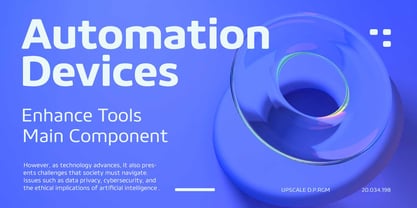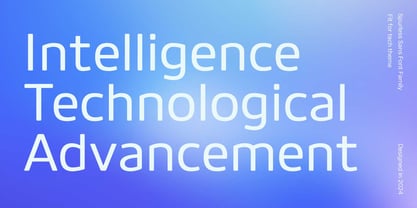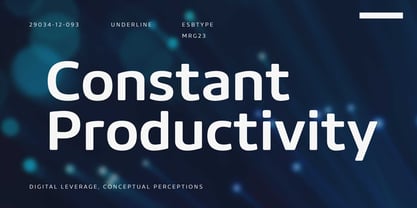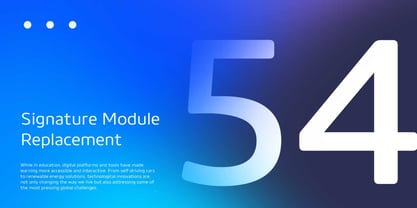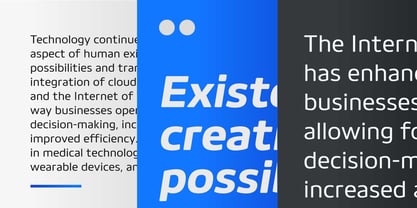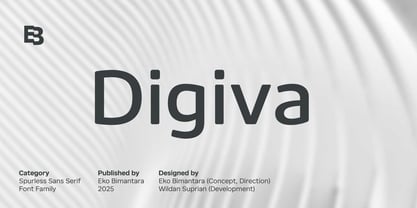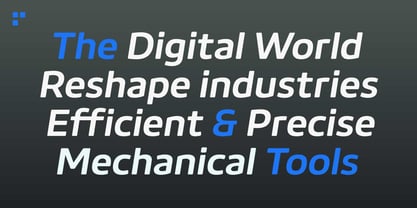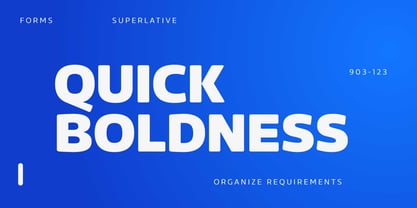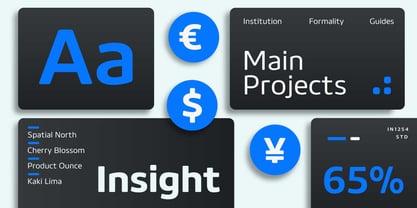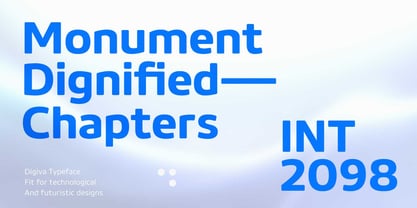
Digiva
by Eko Bimantara
The Digiva Font Family was designed by Eko Bimantara, Wildan Suprian Syah and published by Eko Bimantara. Digiva contains 18 styles and family package options.
Digiva is a spurless sans font family known for its clean and neat design. The family includes 8 styles, ranging from thin to black, with each matching obliques, making it versatile for a wide range of uses. Perfectly suited for futuristic, digital, and technology-themed projects, it also fits well with corporate, contemporary, and functional design. Ideal for display, large sizes, titles, headers, websites, brand identities, or text, paragraph, body copy, web or print article, product packaging, and various graphic design applications, Digiva brings a modern and professional touch to any creative work.
Designers: Eko Bimantara, Wildan Suprian Syah
Publisher: Eko Bimantara
Foundry: Eko Bimantara
Design Owner: Eko Bimantara
Eko Bimantara is a type designer from Indonesia. Always has an intention to creating fonts that not only look great but also perform across a wide range of mediums and also across wide range of theme. The goal is to give designers the tools to make their projects that speaks a lot with various expression. Eko Bimantara’s fonts are featured in everything from corporate identities to street art posters, and have numerous ideas and concept ready to expand for fresh fonts for years further.